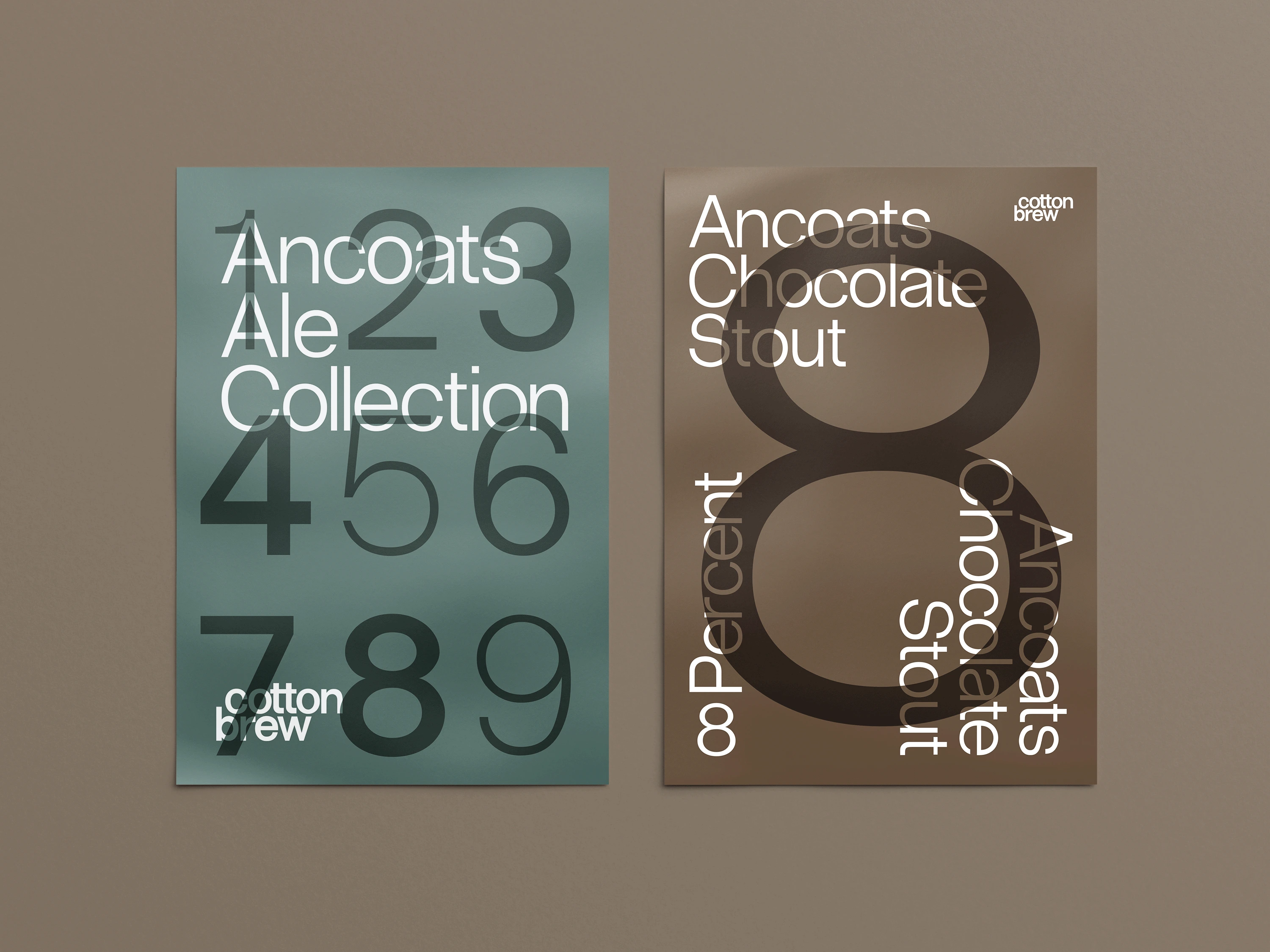
Ben Sewell
A bespoke sans serif font created for my type design practice CottonType. I created the font as a homage to my love and obsession with the international style.